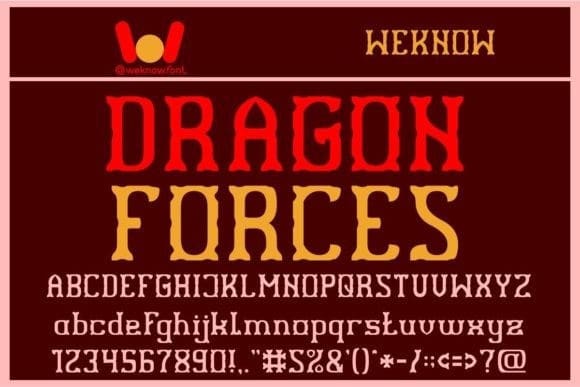
Dragon Forces Font
Dragon Forces Font is a cool and unique display font. No matter the topic, this font will be a great addition to your typeface collection as it has the potential to enhance any creation!